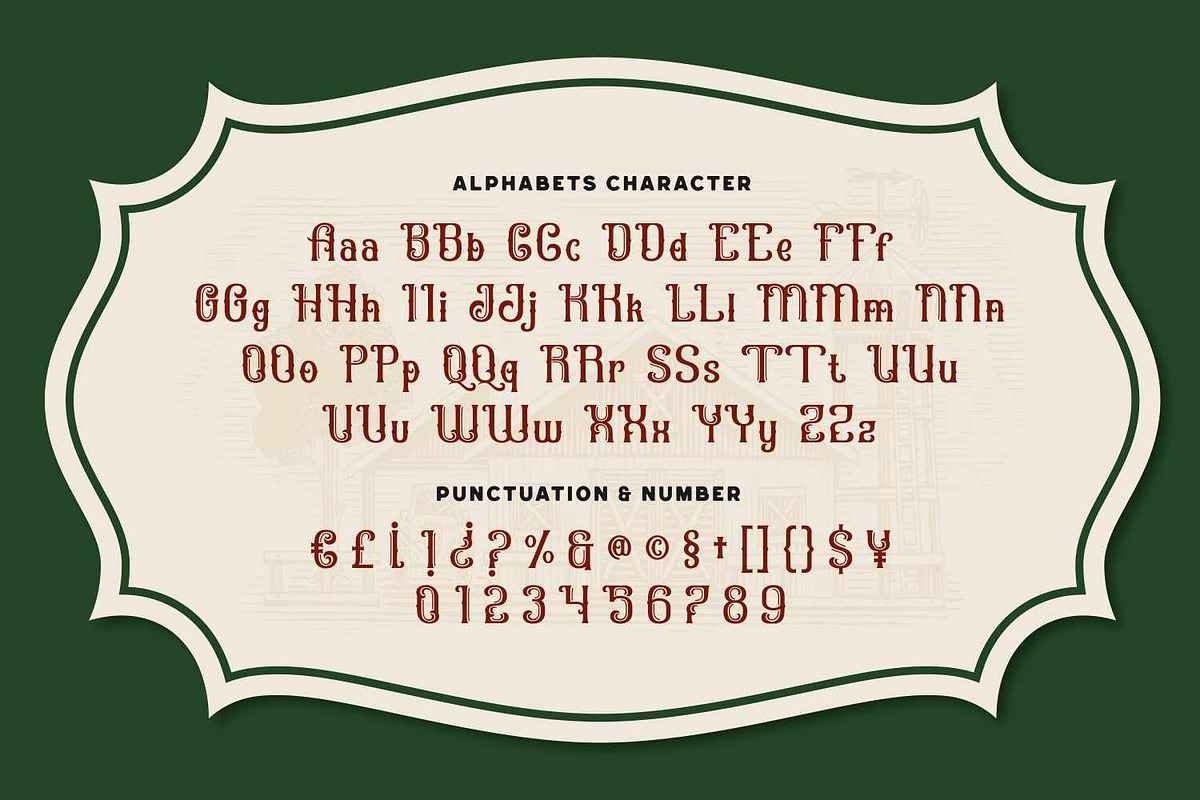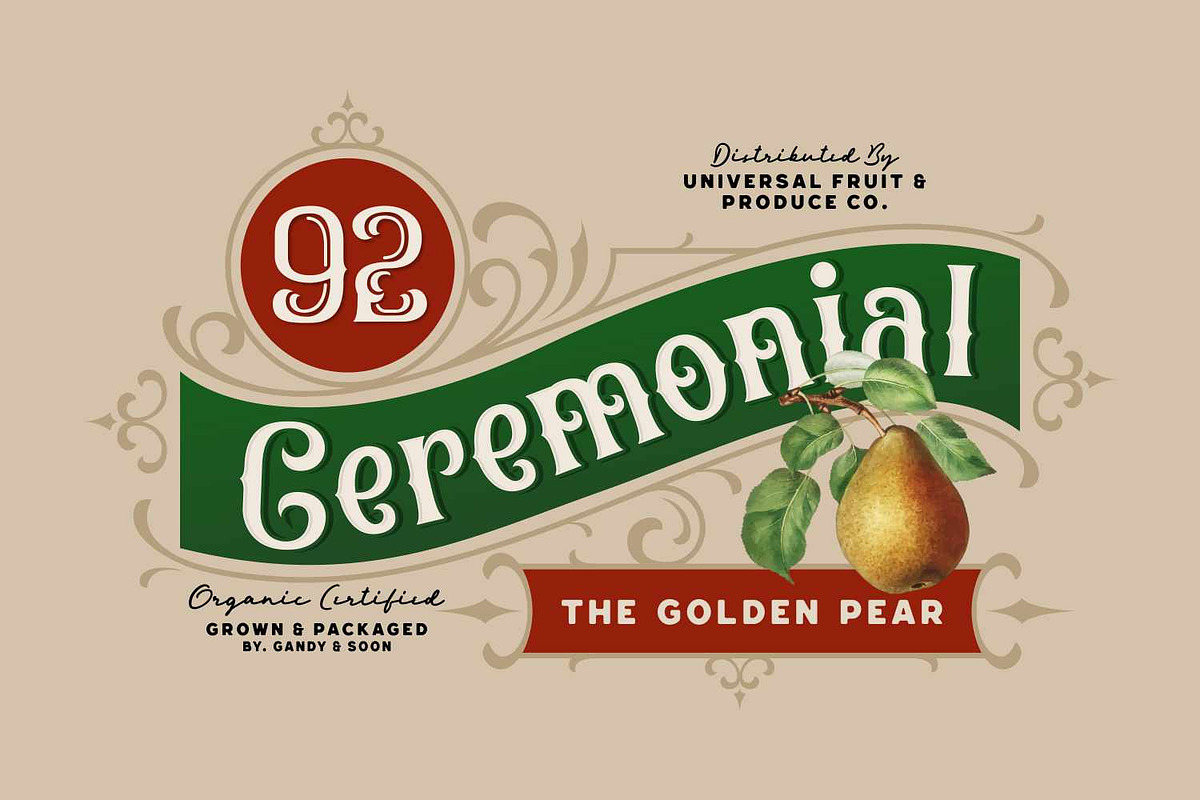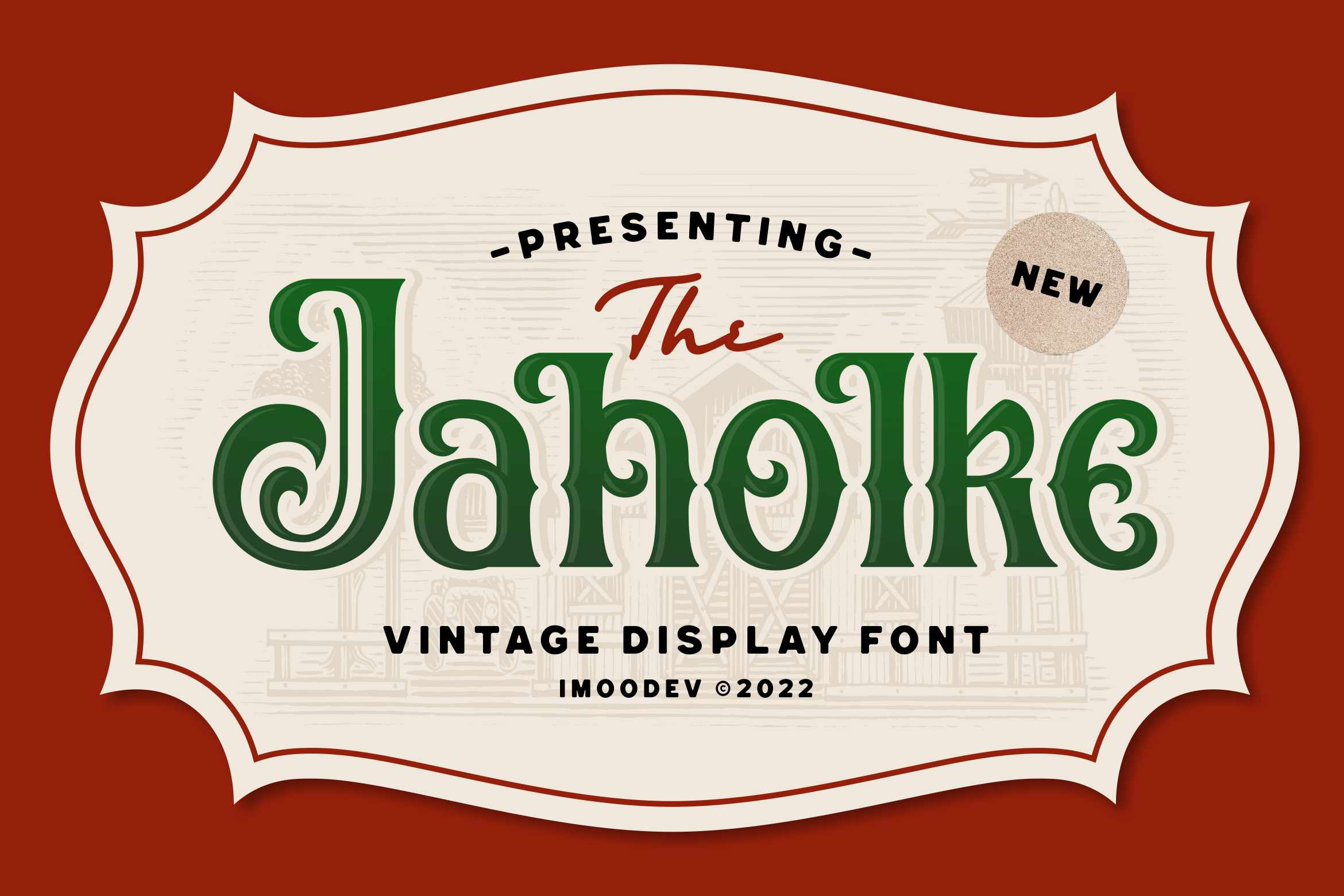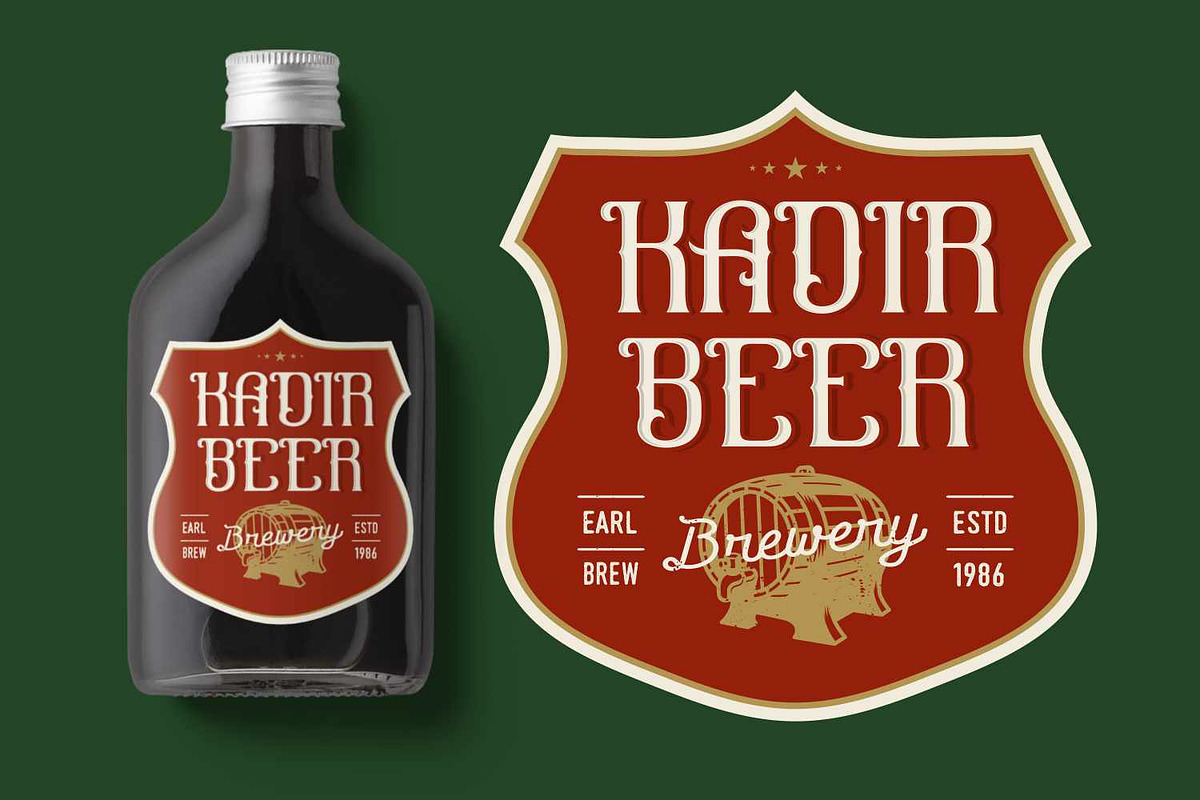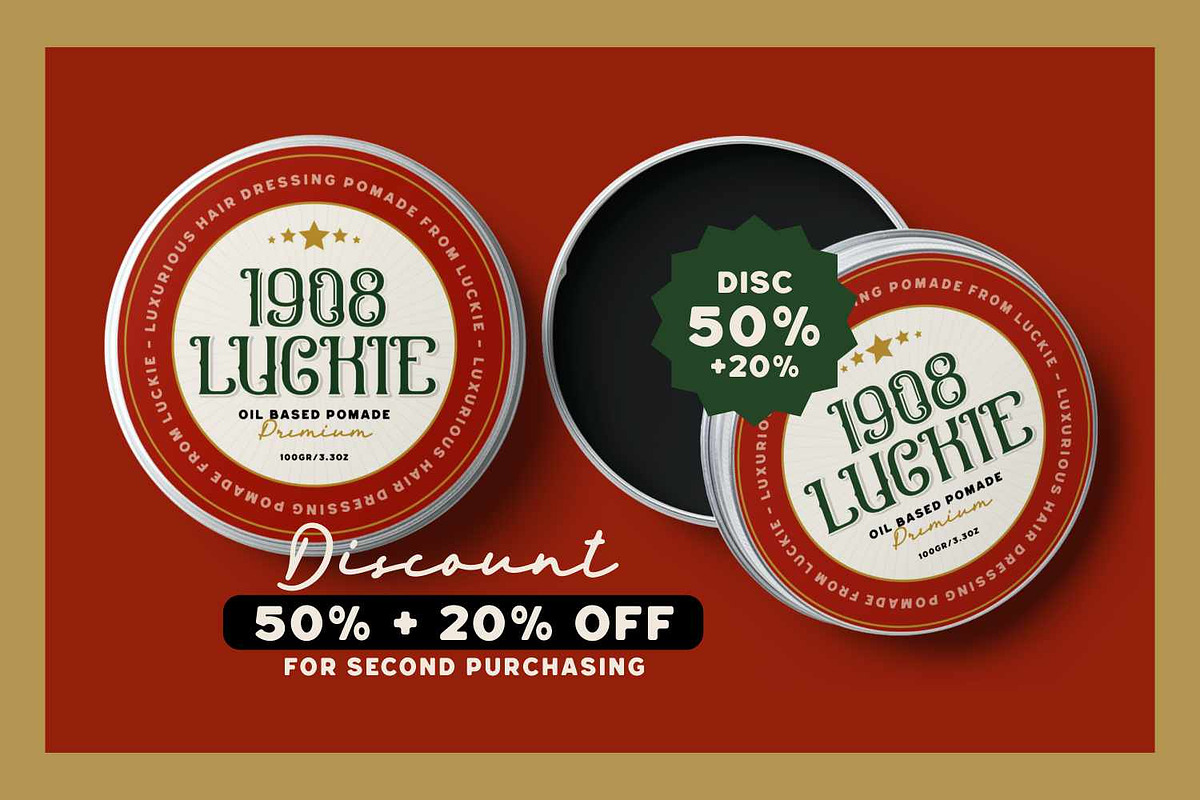
Jaholke - Decorative Vintage Font
Jaholke is a decorative vintage style font featuring upright, bold strokes with pronounced, curved serifs and distinctive loops that give it a handcrafted, antique appearance. It evokes the look of 19th century Victorian display typefaces often seen on posters, bar signs, or circus advertisements.
Jaholke is well suited for use in titles, logos, beverages, organic food packaging, barbershops, pomade products, or anything that aims to convey a sense of heritage, craftsmanship, or classic quality.